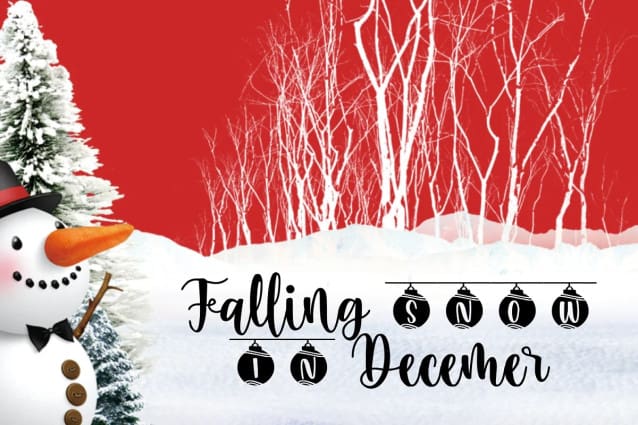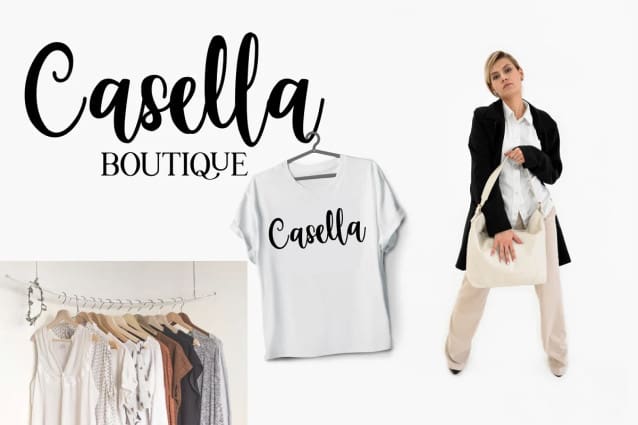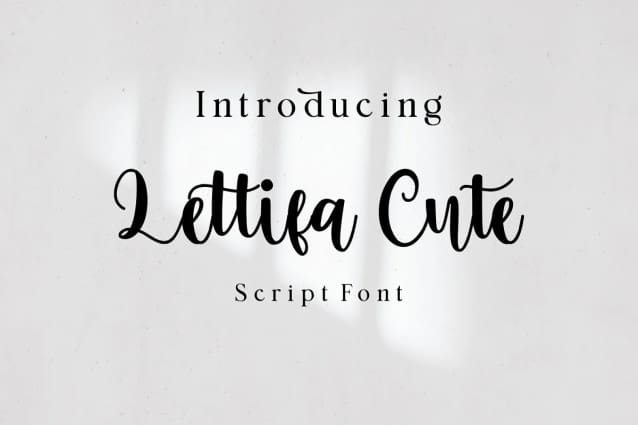
Lettifa Cute Font
Lettifa Cute Font is a script font specially made for events in December. Suitable for Christmas greetings, invitations, circut, fashion, models. You will get : Lettifacute TTF Lettifacute OTF Lettifacute WOFF Grab Bonus font to perfect your design in crismast event. In order to use the beautiful swashes, you need a program that supports OpenType features such as Adobe Illustrator CS, Adobe Photoshop CC, Adobe Indesign and Corel Draw.